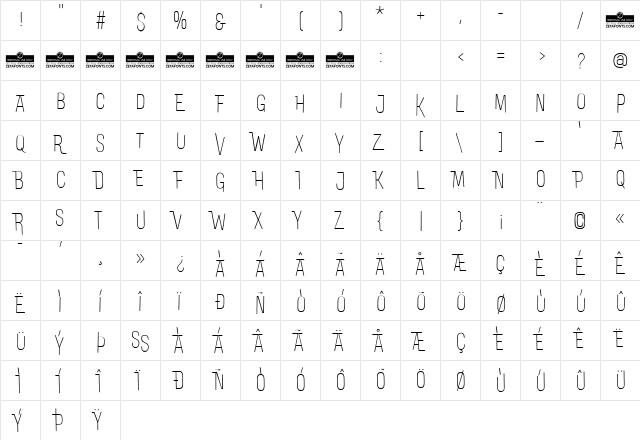
DoubleBass Thin Regular
| Foundry | Studio Kmzero & Zetafonts |
| Designer | Cosimo Lorenzo Pancini |
Design Context for DoubleBass Thin Typeface
DoubleBass Thin is a composed and adaptable typeface that performs quietly and consistently across a wide range of design contexts. The delicate stroke weight brings airiness and refinement to layouts.